Choosing the best travel fonts for posters, brochures, and tourism branding can be challenging. Many tourism campaigns feature stunning destination photography, beautiful landscapes, and compelling travel offers, yet the overall design still feels generic or uninspiring. In many cases, the missing element is typography.
Typography plays a critical role in travel marketing because it helps communicate the personality of a destination. Whether you’re promoting tropical beaches, luxury resorts, mountain adventures, cultural tours, or city experiences, the right font can reinforce the mood and attract the right audience.
A carefully selected travel font can make a tourism poster feel adventurous, a brochure feel trustworthy, or a destination brand feel memorable. In this article, we’ll explore some of the best travel fonts for posters, brochures, and tourism branding, along with visual examples, use cases, and practical branding tips.
Why Typography Matters in Travel Marketing
Travel marketing is built on emotion. People rarely book trips based solely on information. They choose destinations because of how those destinations make them feel.
Typography contributes to that emotional connection by helping communicate:
- Adventure
- Relaxation
- Luxury
- Exploration
- Culture
- Excitement
When combined with strong imagery, typography creates a complete visual story that inspires action.
What Makes a Great Travel Font?
Effective travel fonts typically offer:
- Strong readability
- Distinct personality
- Versatility across media
- Compatibility with photography
- Memorable visual presence
The goal is to support the destination’s identity while maintaining clear communication.
Recommended Travel Fonts for Posters, Brochures, and Tourism Branding
1. Avone
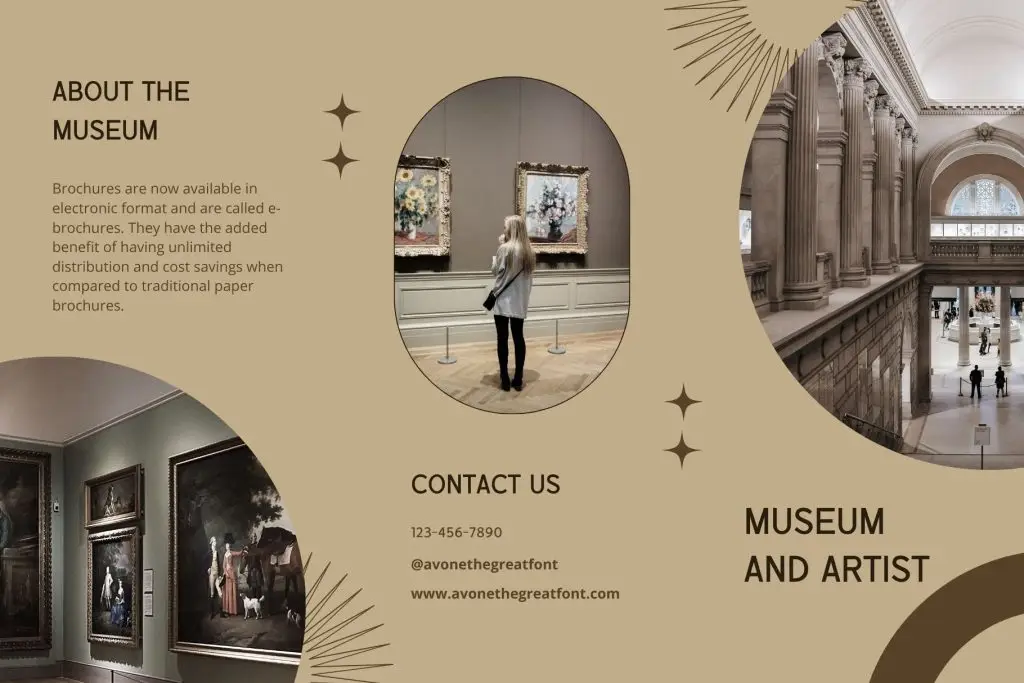
Discover Avone, a sophisticated sans-serif font designed to bring elegance and boldness to your creative projects
2. Baigont
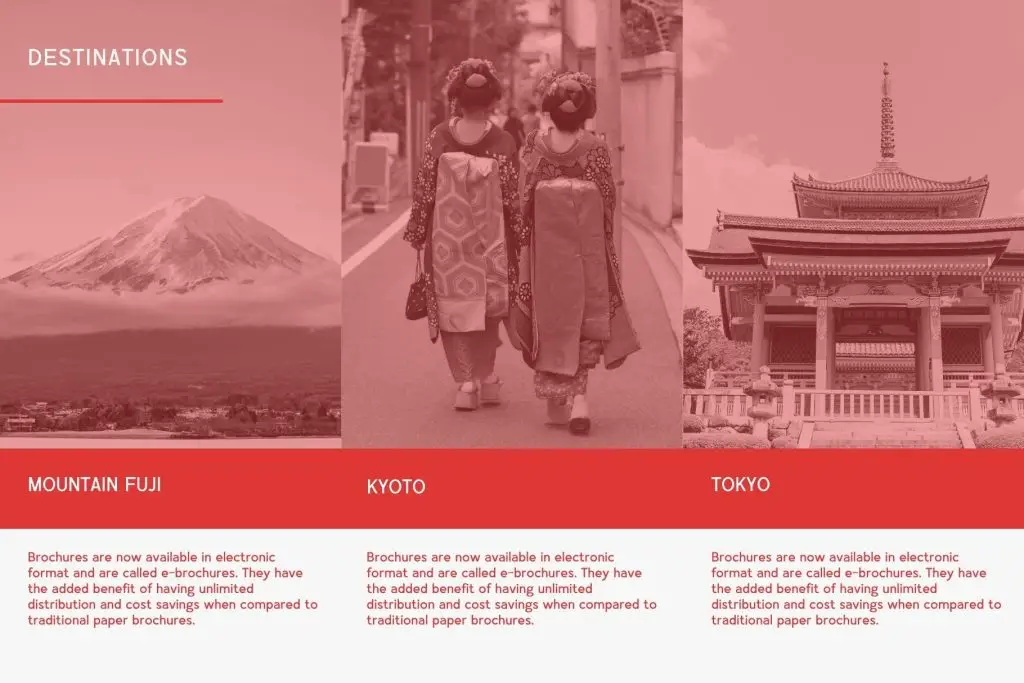
Explore the captivating ‘Baigont’ font, where a beautiful series of letters converges to elevate your writing experience. The meticulous, neat lettering is tailored to fulfill modern writing needs, offering a seamless fusion of contemporary style and visual appeal. While exuding a modern impression, the ‘Baigont’ font maintains an enduring elegance, making it a perfect choice for various writing purposes.
3. Bretish
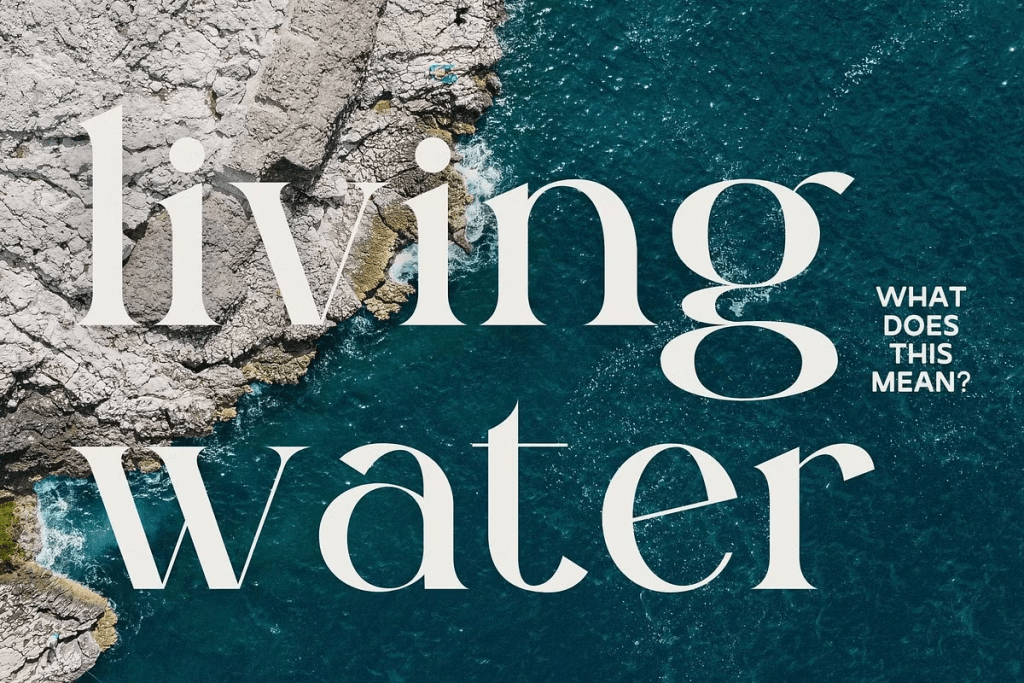
Bretish combines sophistication and timeless appeal, making it ideal for destination branding and travel brochures.
4. Candle
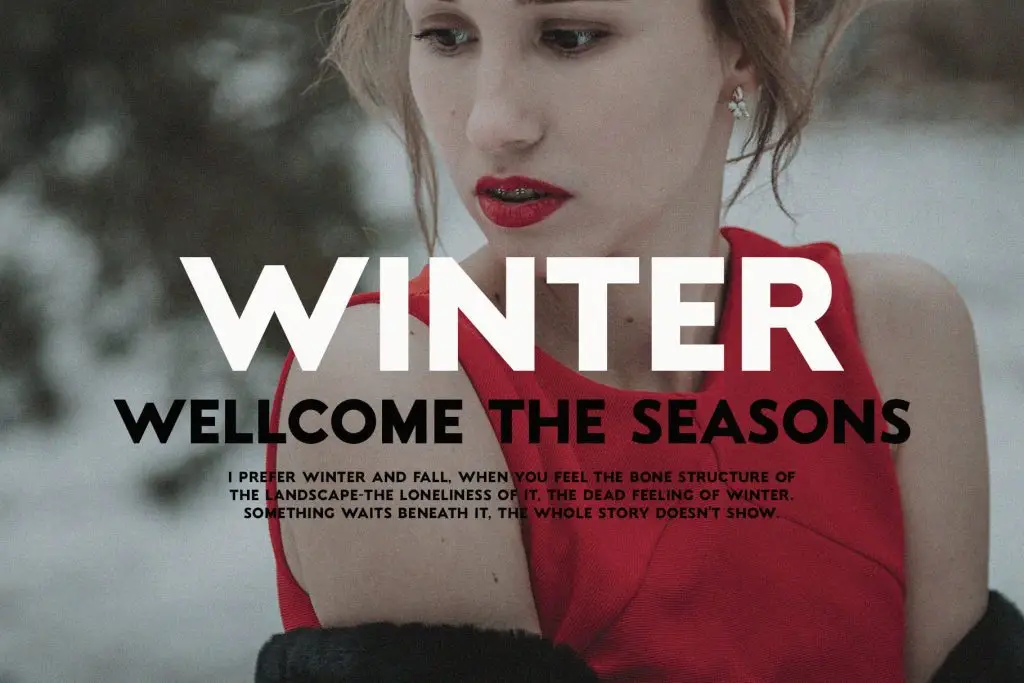
Candle is a modern all-caps font that combines sophistication and clarity.
5. Circle Amolens
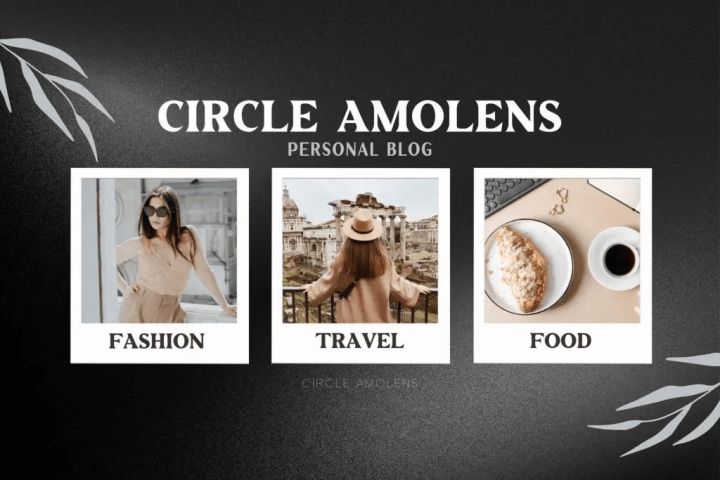
Discover Circle Amolens, a bold serif font designed to bring sophistication and elegance to your creative projects..
6. Cheryl
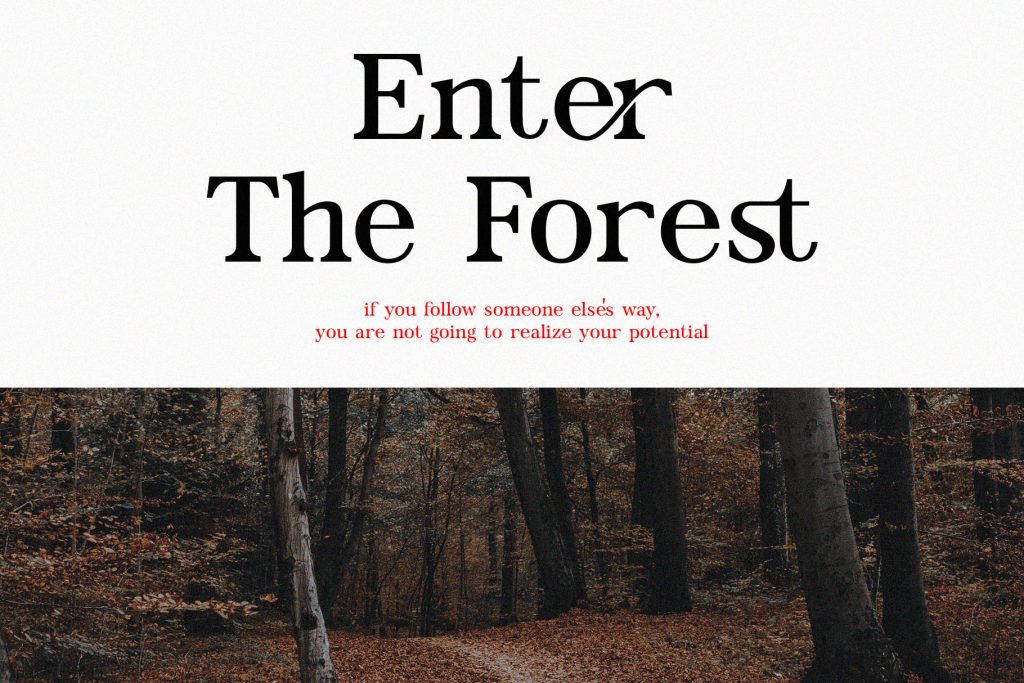
Cheryl is a decorative serif typeface that combines classic sophistication with a modern touch.
7. Fagheto
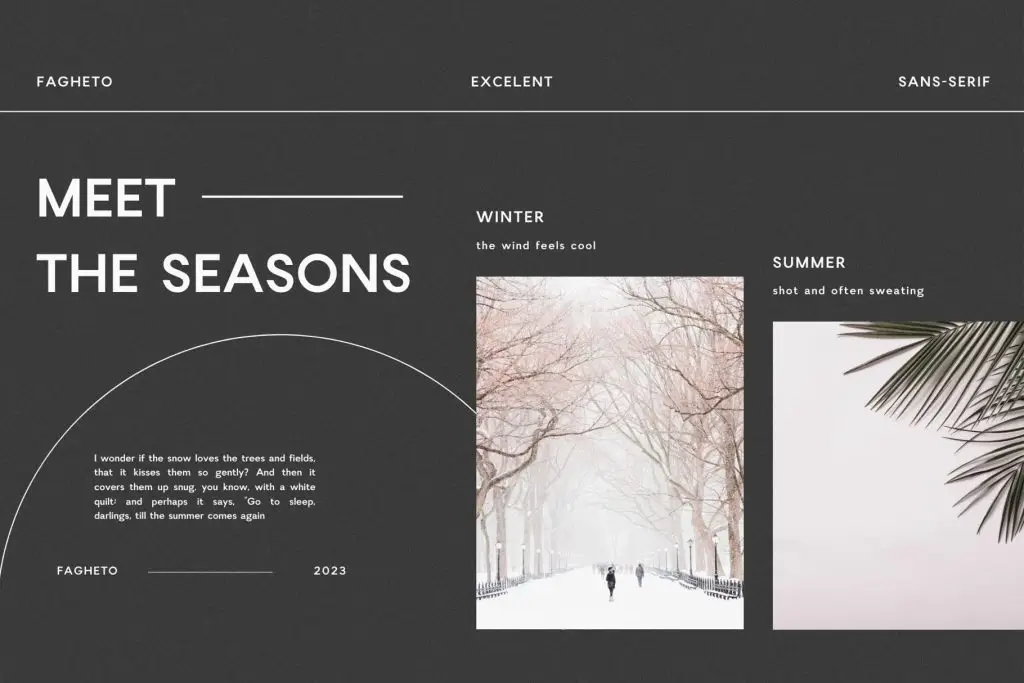
Meet Fagheto, an elegant and bold sans-serif font crafted to elevate your creative projects, with a wide range of tourism projects.
8. Govers
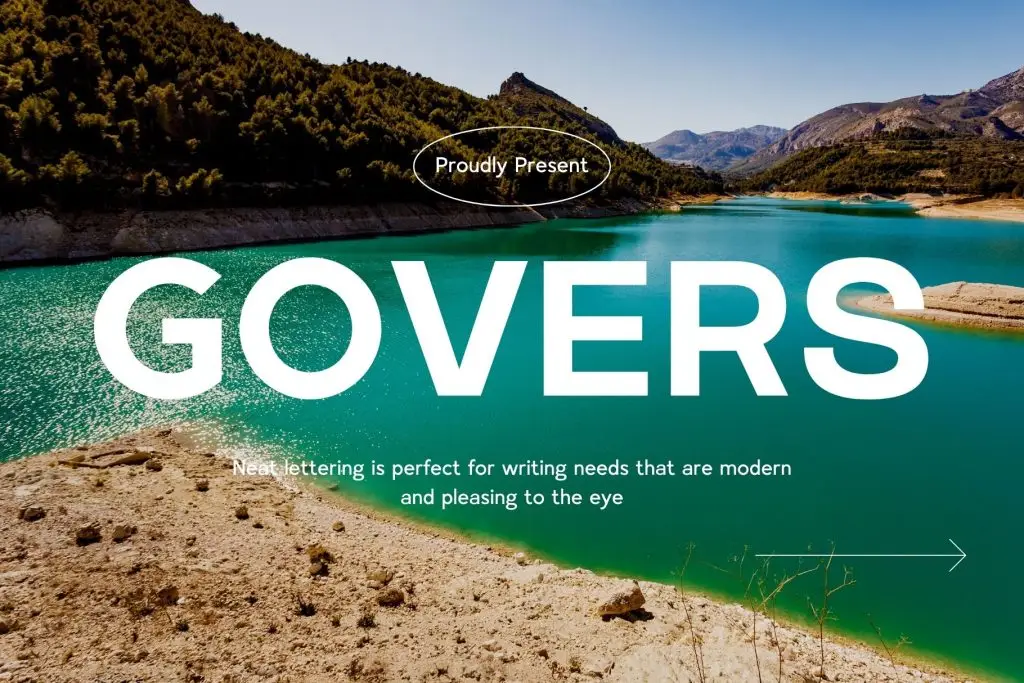
Meet Govers, a modern sans-serif font meticulously crafted for clarity, style, and comfort in every application. With clean lines, even spacing, and refined proportions, Govers delivers a sleek, contemporary appearance that ensures exceptional readability across systems.
9. Queen Horison
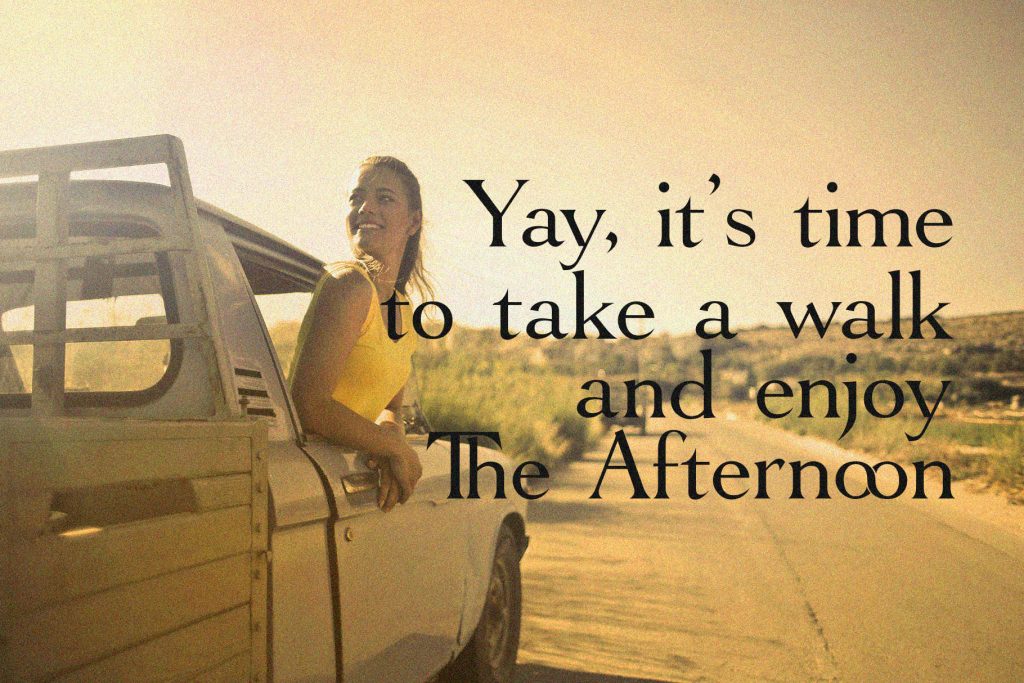
Horison is a sophisticated and versatile serif font that enhances your designs with modern elegance.
10. Vacation
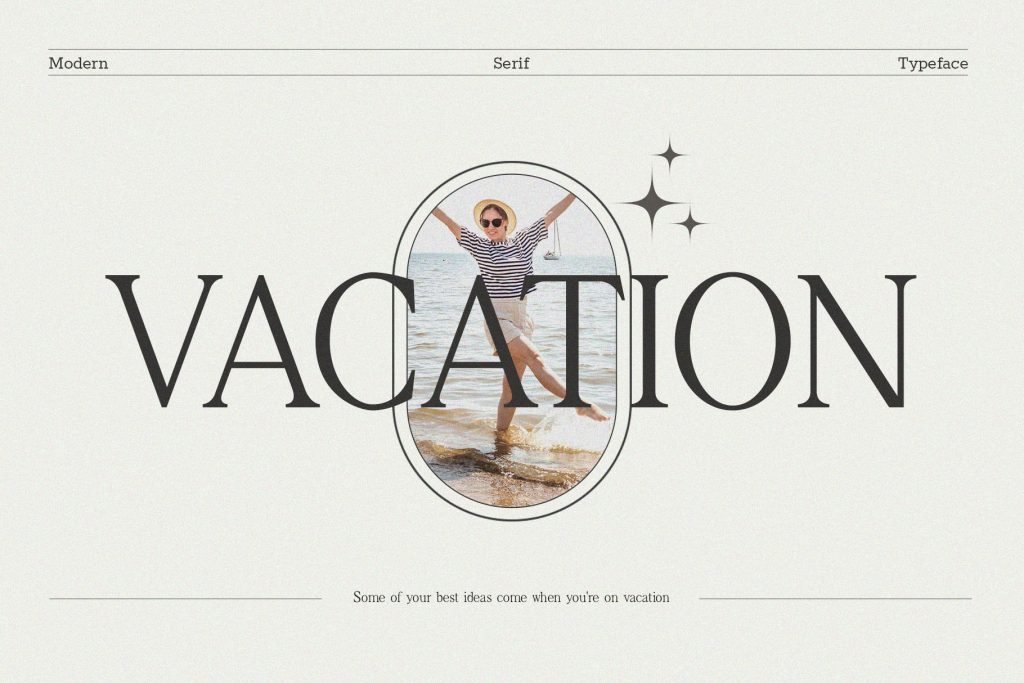
Vacation is a beauty serif font that combines elegance with versatility. Its timeless design makes it the perfect choice for a wide variety of projects, from fashion and beauty branding to social media designs. Vacation captures the fun and excitement associated with travel experiences.
Best Use Cases for Travel Fonts
Different tourism materials require different typography approaches. Understanding these applications helps maximize effectiveness.
Tourism Posters
Travel posters need to attract attention quickly.
The right typography can:
- Highlight destinations
- Reinforce brand personality
- Increase visual impact
Fonts like Baigont and Vacation perform particularly well in large-format promotional designs.
Travel Brochures
Brochures require a balance between personality and readability.
Typography helps organize:
- Destination information
- Tour packages
- Travel itineraries
- Promotional offers
Fonts such as Bretish and Govers work especially well for brochure layouts.
Destination Branding
Tourism boards and destination marketing organizations often need long-term branding systems.
Strong typography helps create:
- Consistent identity
- Brand recognition
- Emotional connection
Queen Horison and Avone are excellent choices for destination branding projects.
Hotel and Resort Marketing
Conclusion
Choosing the best travel fonts for posters, brochures, and tourism branding can significantly improve the effectiveness of your marketing materials. Typography helps communicate the personality of a destination, create emotional engagement, and strengthen brand recognition.
Fonts such as Avone, Baigont, Bretish, Candle, Circle Amolens, Cheryl, Fagheto, Govers, Queen Horison, and Vacation offer unique styles that work across posters, brochures, destination branding, resort marketing, and social media campaigns.